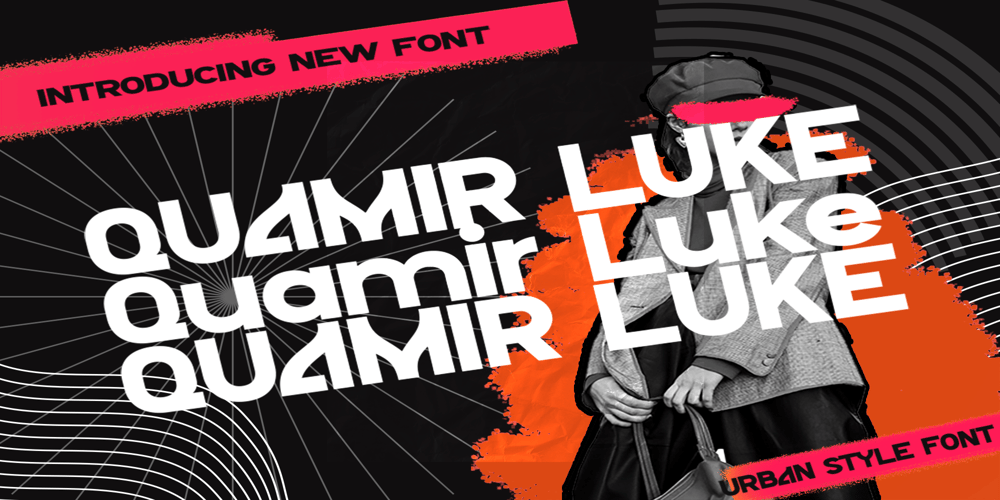
Quamir Luke
Quamir Luke font
Quamir Luke Font Family was designed by Hunaiza Aljahsy and published by HunaizaAljahsy. Quamir Luke contains 1 styles and family package options. Quamir Luke is a luxury font with a elegant sans serif font that look divine when paired together. Elevating them to the highest levels. Add this font to your favorite creative ideas and nthiotice how it makes them come alive!this font is great for your next creative projects such as watermark on photography, logo design, wedding, invitation, quotes, book cover, business card, and many other design project.